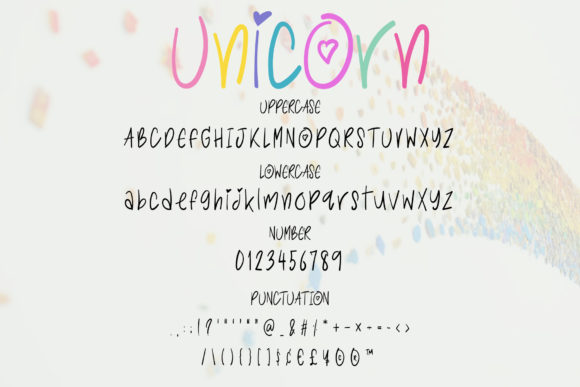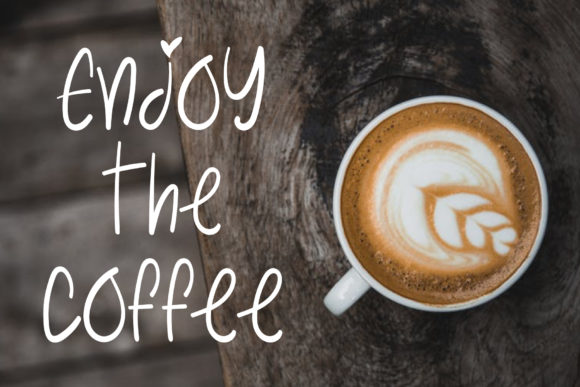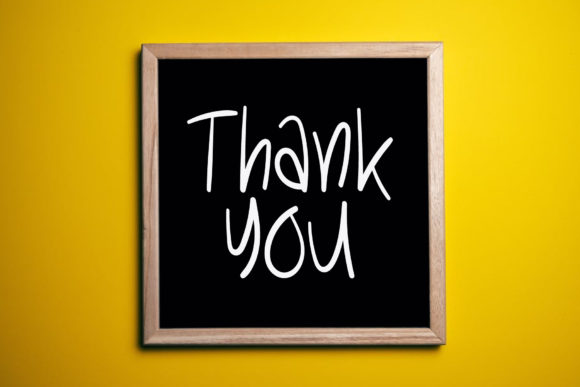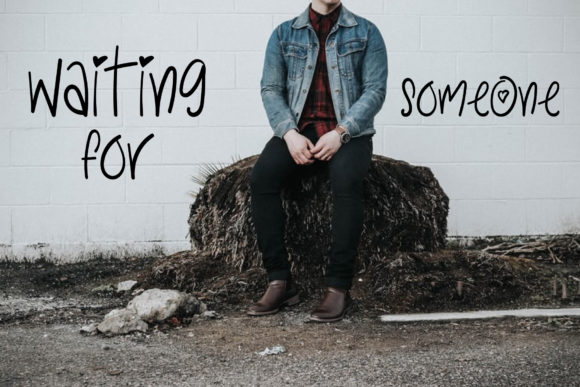
HomeScript FontsUnicorn Font Script Fonts Unicorn Font FacebookXPinterestWhatsApp 1 of 5 Unicorn Font Poster 2... Unicorn Font Poster 3... Unicorn Font Poster 4... Unicorn Font Poster 5... About Unicorn Font Unicorn is a fun and joyful handwritten font. Playful and cute, this font is ideal for any school or kids project! DOWNLOAD NOW People also explored Fontmageddon Croonicle Font Aperture Winter Vacation Font Battasi Font Madeira Font Qournatte Font Flunkie Font Dymond Speers Solid Font 258 0 TagsUnicorn Font Previous articlePaisley FontNext articleSpicy Chili Font LEAVE A REPLY Cancel reply Comment: Please enter your comment! Name:* Please enter your name here Email:* You have entered an incorrect email address! Please enter your email address here Website: Save my name, email, and website in this browser for the next time I comment. Personal Use Free The 10 Best Handwriting Fonts to Add Personality to Your Designs Blog Read more about this font Still Time Personal Use Free Read more about this font Heart Memory Personal Use Free Read more about this font Awkward Personal Use Free Read more about this font BLOG Where to Buy American Fonts Online in 2024 Where to Buy American Fonts Online: The Ultimate Guide for 2024 Looking for the perfect American font to elevate your design projects? You're in the... To increase your work productivity, choose the most readable fonts. The 10 Best Handwriting Fonts to Add Personality to Your Designs Using Fonts in Digital Marketing: Tips to Strengthen Your Brand Identity